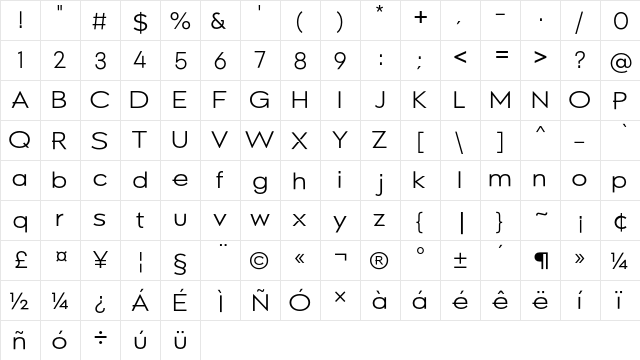
Logoplexi Regular
| Foundry | MOMI |
| Designer | Matt Chansky |
Design Context for Logoplexi Typeface
Logoplexi is a composed and adaptable typeface that performs quietly and consistently across a wide range of design contexts.